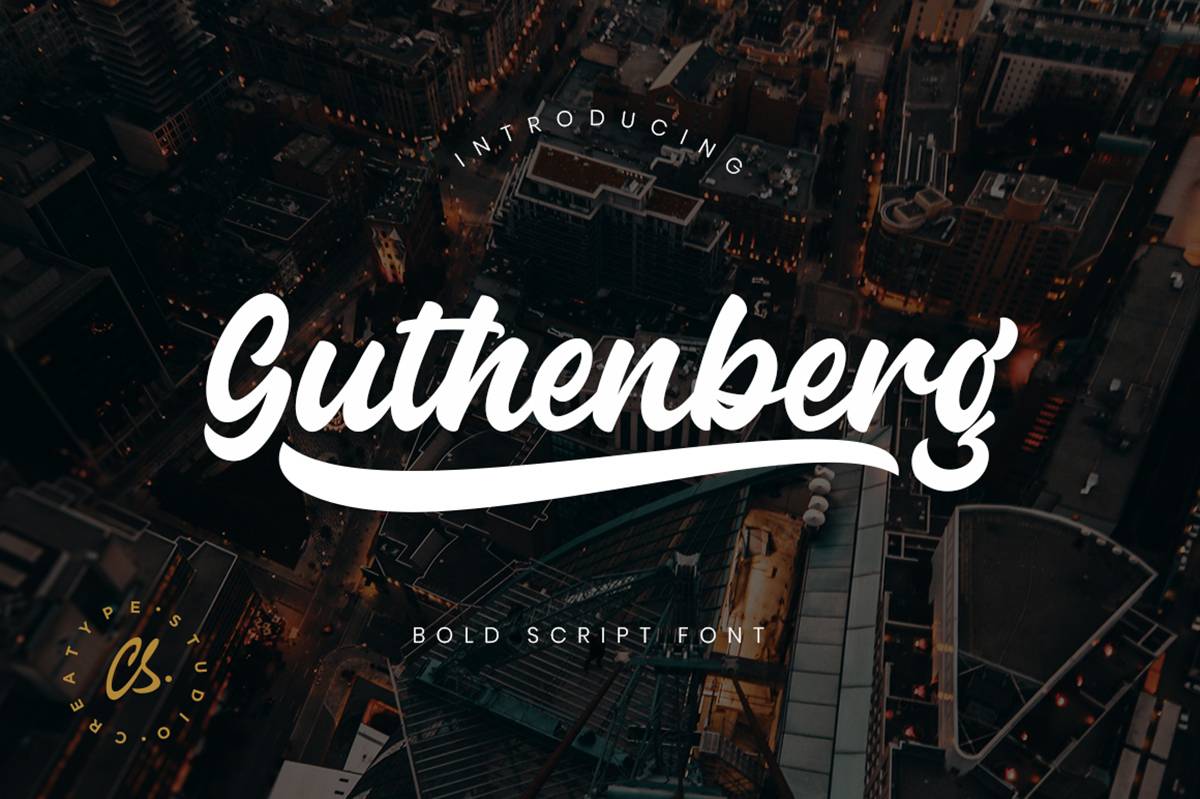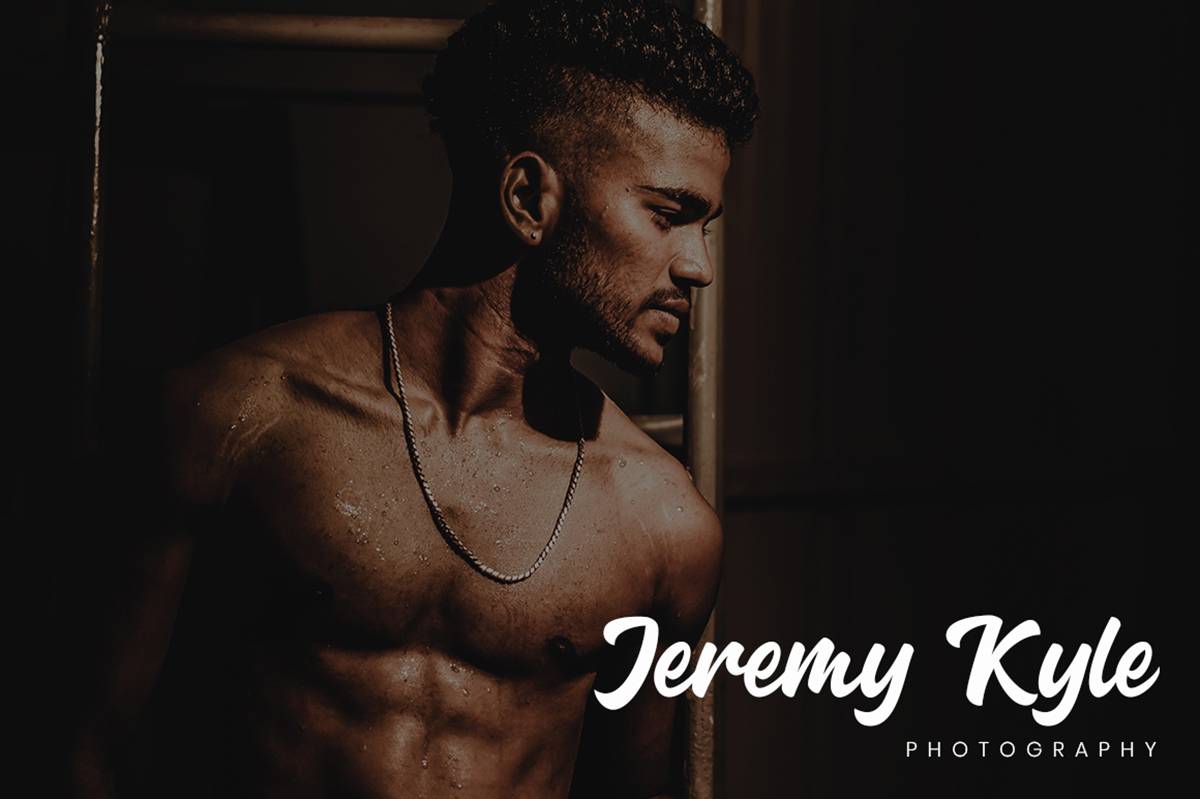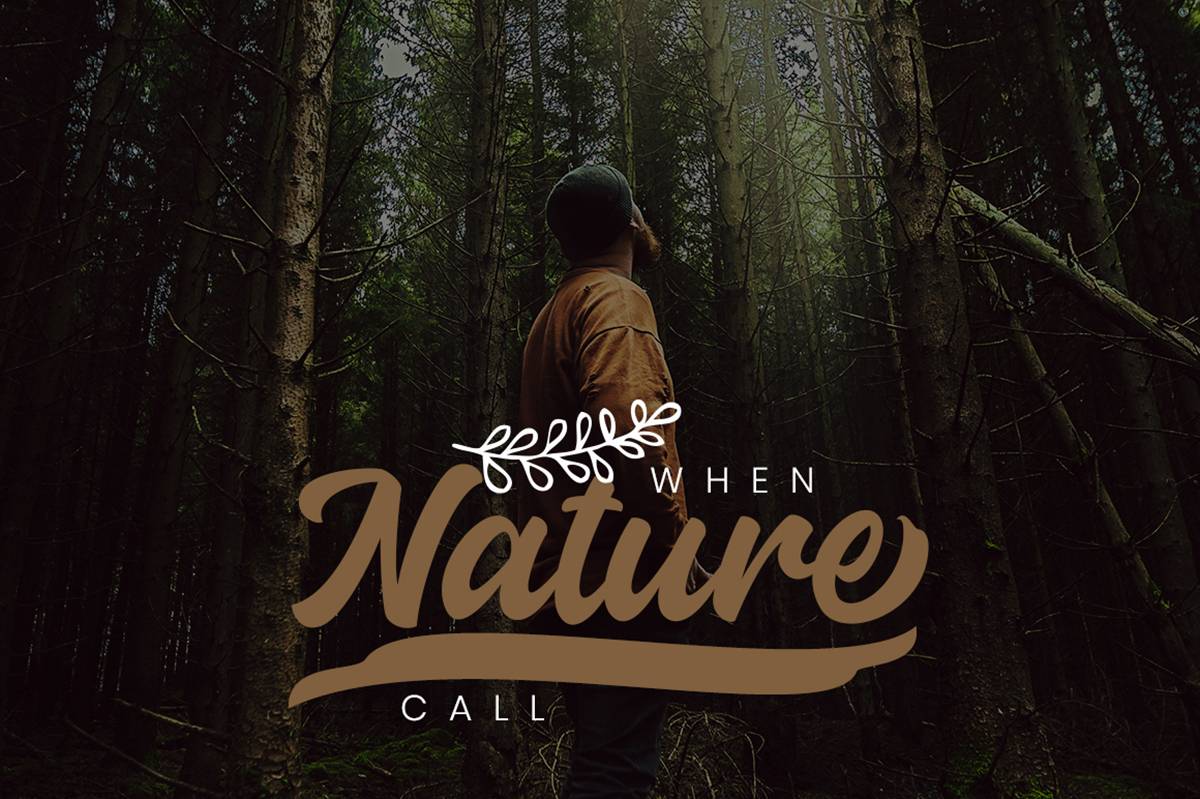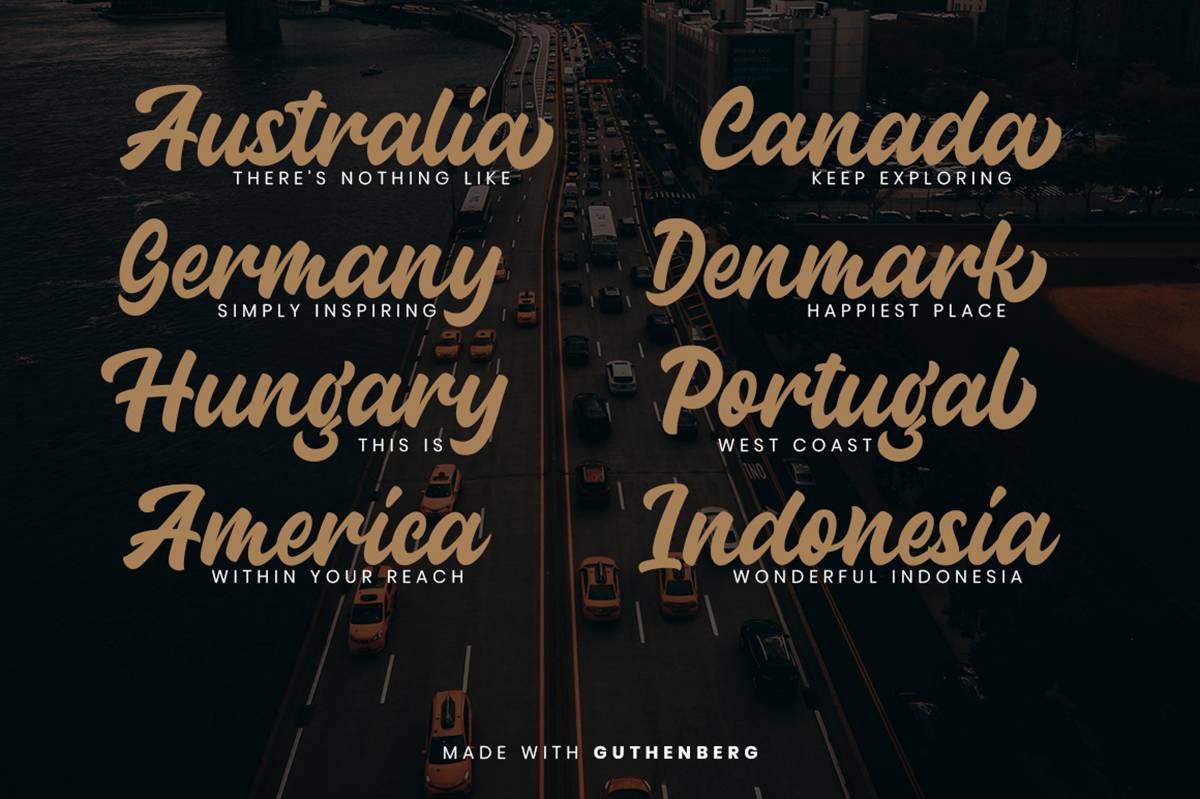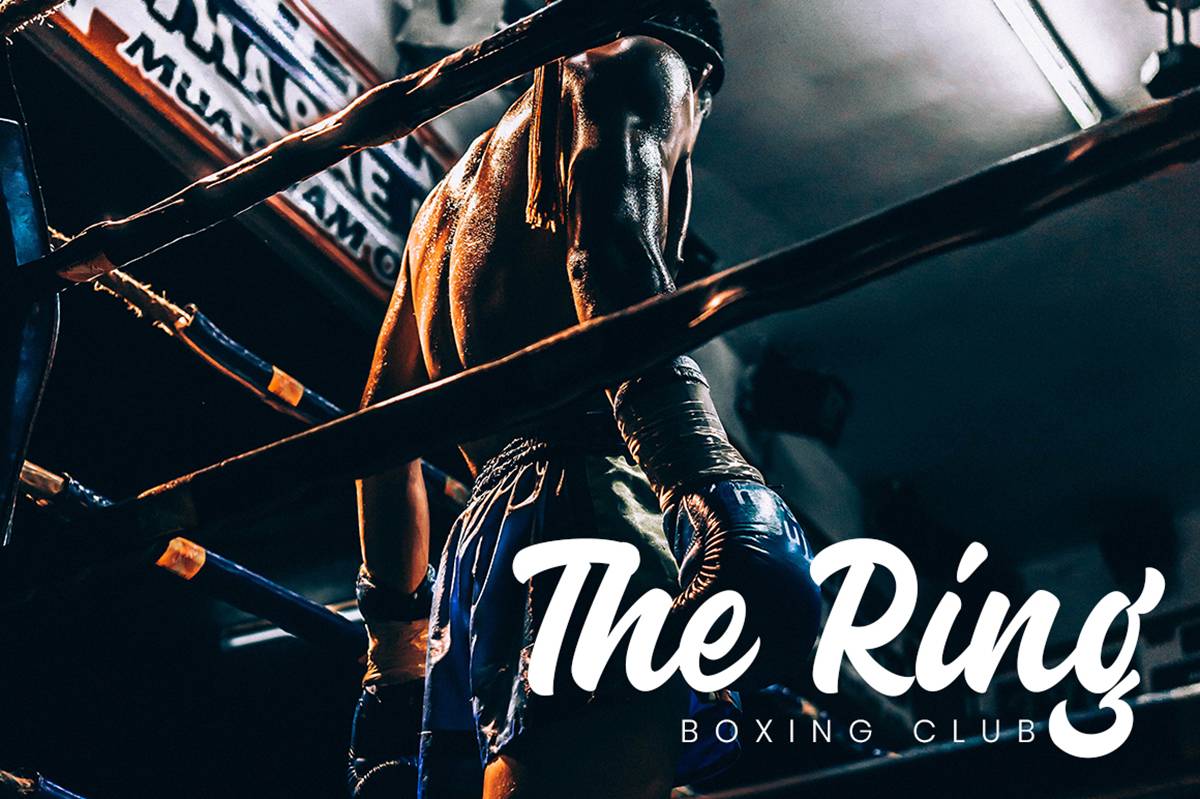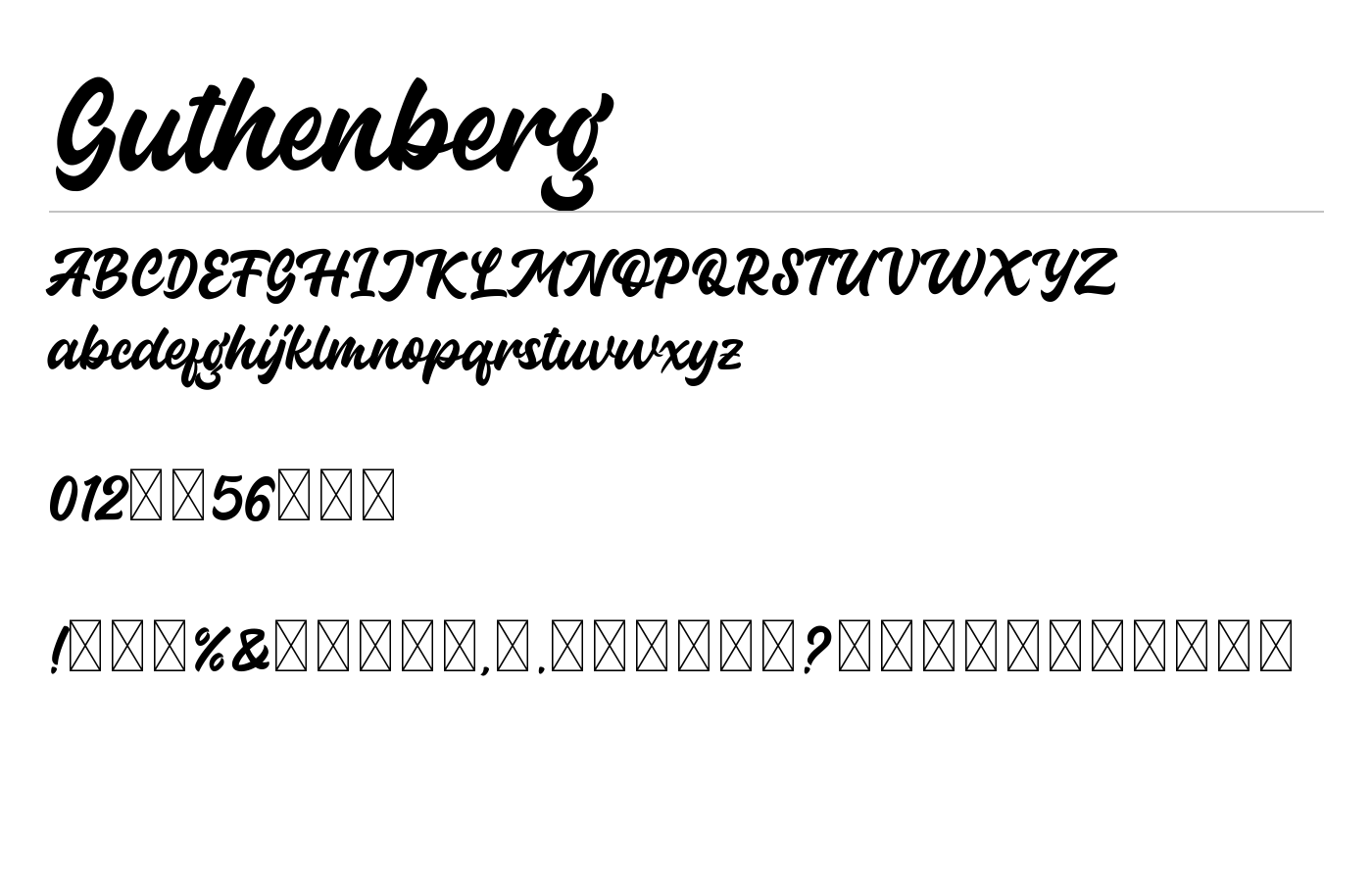
Guthenberg is a lively script font with smooth, flowing strokes and a bold weight that gives it a confident, handwritten feel. Its slightly condensed letterforms and connected characters make it ideal for conveying warmth and personality, perfect for branding, invitations, and creative headlines that want to stand out with a friendly yet elegant touch.
Guthenberg Font
About Guthenberg Font